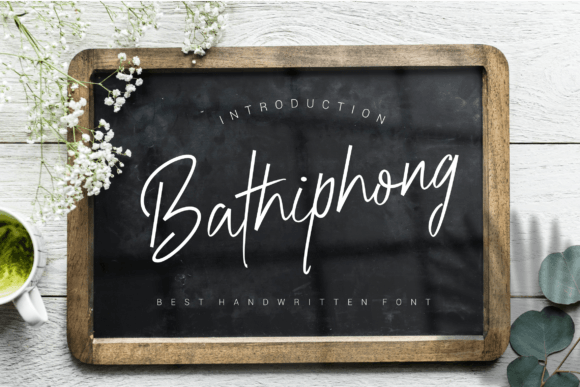
The Bathiphong Font, a boldly captivating script font, stands as the perfect choice for your branding endeavors. Crafted by the skilled hands of kalingga.albert, this font exudes an air of authenticity that is sure to make your designs shine.
Whether you're crafting a striking logo, emblazoning your brand on t-shirts, or creating captivating exports, Bathiphong's versatility knows no bounds. Its bold strokes and flowing curves lend an undeniable charm to any project, evoking a sense of timeless elegance.
Step into a world where your designs transcend the ordinary and embrace the extraordinary. With Bathiphong, you'll unlock a font that embodies both power and grace, making your creations stand out from the crowd. Its adaptability shines in a myriad of contexts, from sleek websites to eye-catching posters, ensuring that your message resonates with your audience.
Don't settle for fonts that blend into the background. Elevate your designs to new heights with Bathiphong, the font that empowers you to make a statement. Let its bold strokes captivate your audience and leave a lasting impression.
Join the ranks of those who demand excellence in their designs. Choose Bathiphong, the font that will ignite your creativity and propel your brand to success.